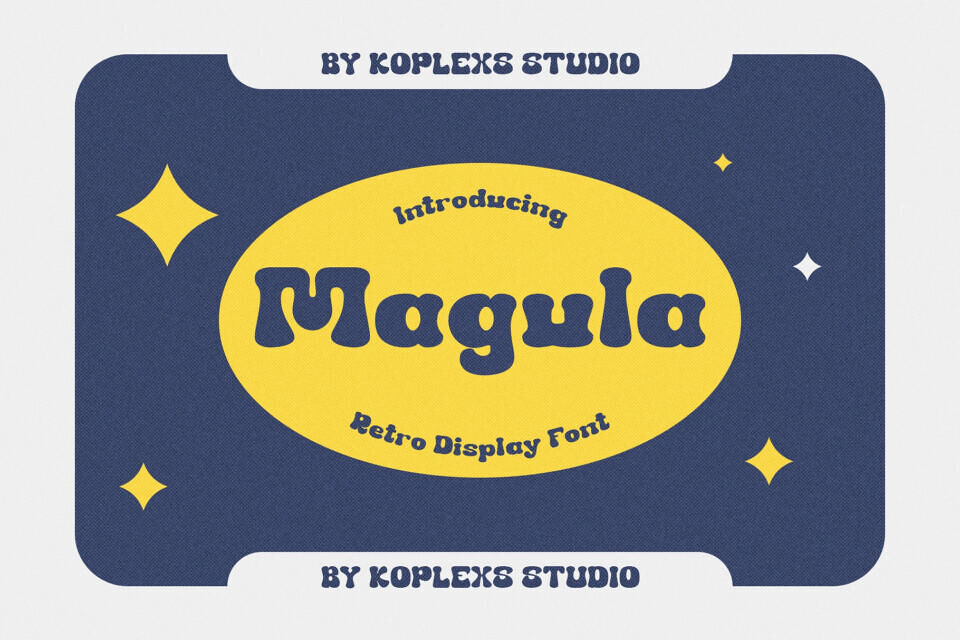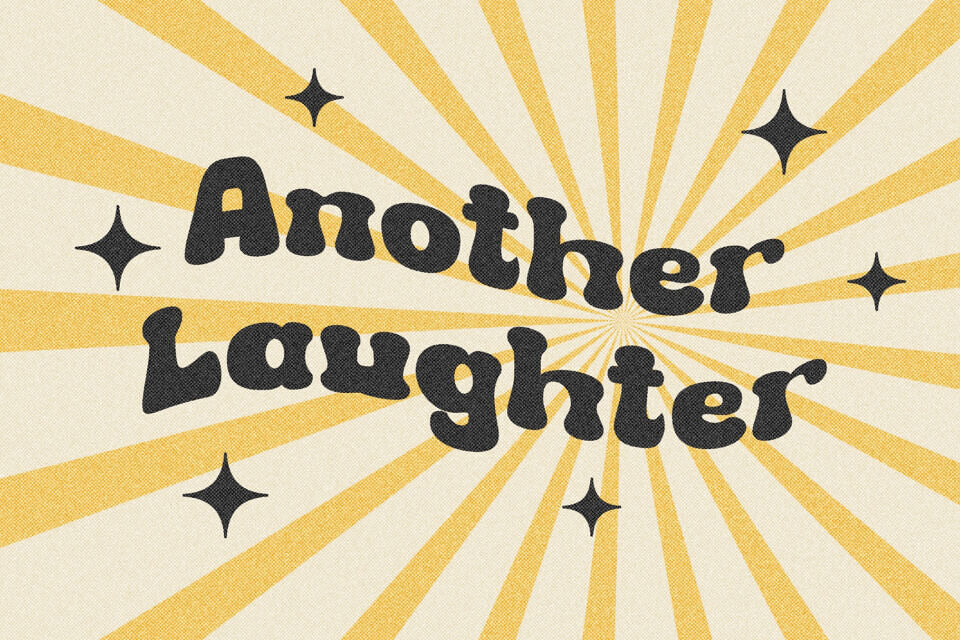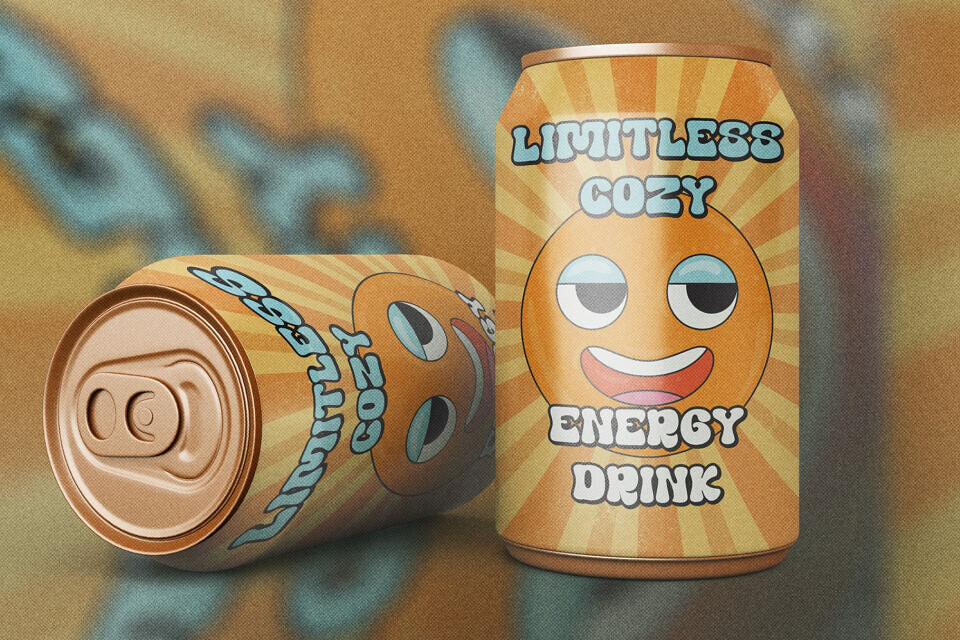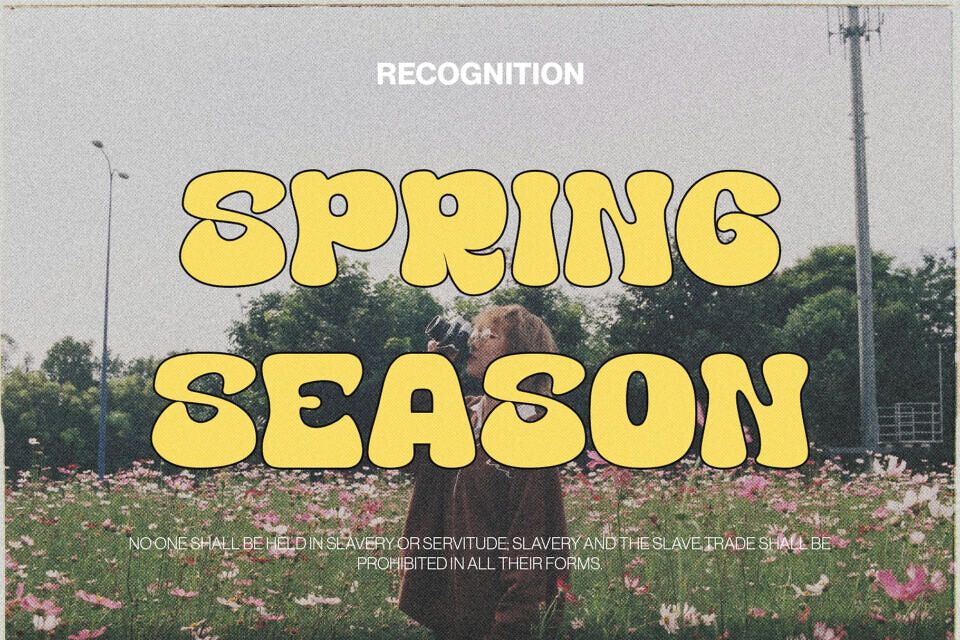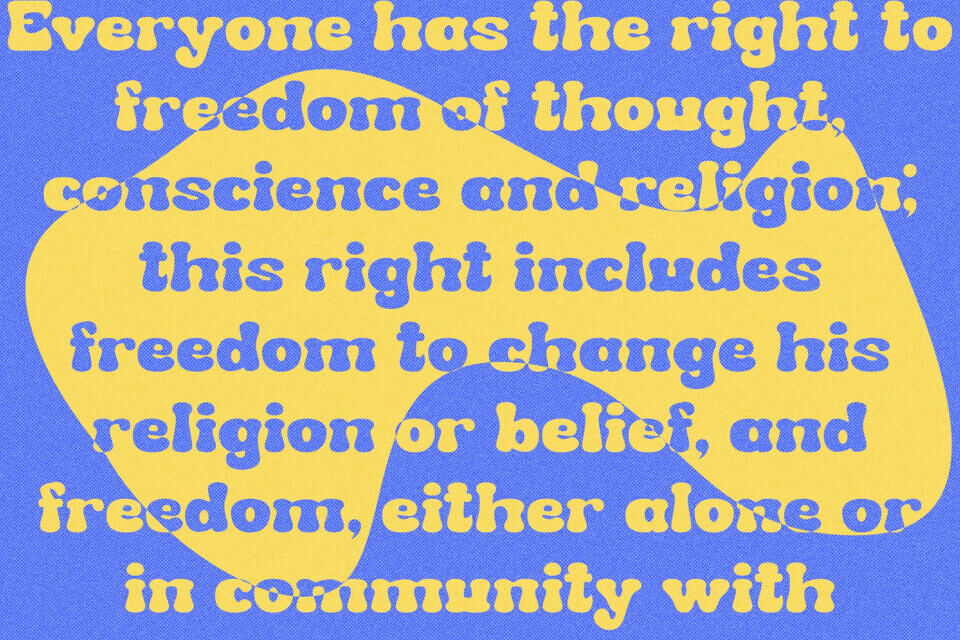
Introducing Magula – Retro Display Font, your ultimate typeface solution for capturing the groovy essence of the 70s with a modern twist. Perfectly designed for those who seek a bold, funky, and vibrant aesthetic, Magula effortlessly channels the retro vibe into your creative projects.
Whether you’re working on vintage-themed branding, eye-catching posters, or playful social media graphics, this font is here to elevate your designs to a whole new level of cool.